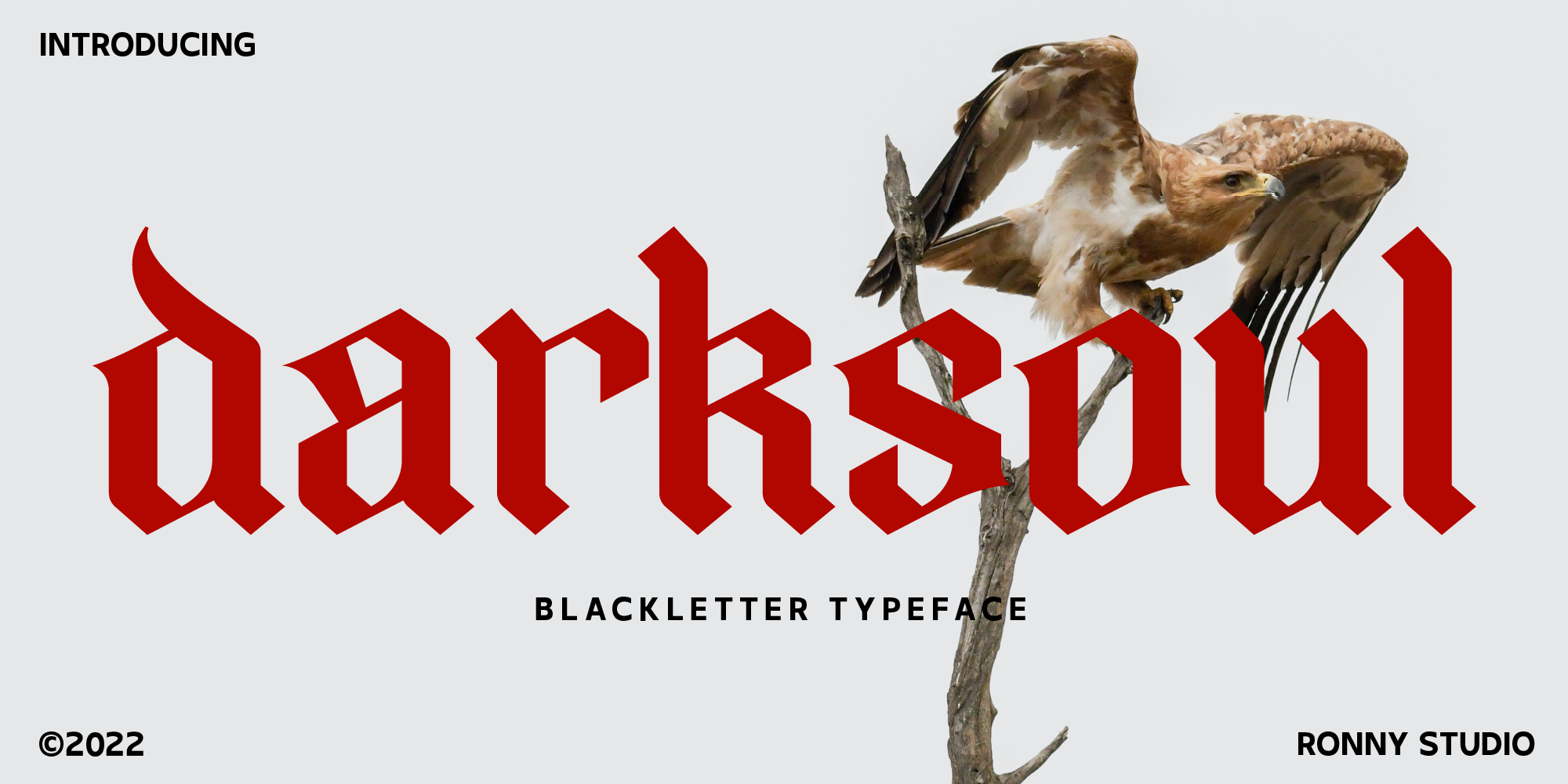
Darksoul Font is a powerful and intensely atmospheric typeface, perfectly suited for projects that demand a dark fantasy, gothic, or deeply mysterious aesthetic. Imagine it dominating the title screen of a challenging video game, adding an ominous and foreboding edge to horror movie posters, or making an unforgettable statement on album covers for heavy metal bands and dark ambient artists. It's also an excellent choice for crafting striking logos for gaming guilds, designing impactful merchandise for alternative brands, or bringing a grim, powerful vibe to graphic novels and supernatural-themed digital content. If you're looking to convey strength, despair, and an undeniable sense of epic darkness, Darksoul Font is an outstanding selection.
What makes Darksoul Font so exciting? It’s its unparalleled ability to combine a robust, often rugged construction with distinctive, sharp, or jagged details that evoke a sense of ancient power and impending doom. This font is designed to stand out, with its thick strokes and unyielding presence making it ideal for display purposes where impact is paramount. Despite its aggressive visual presence, Darksoul Font is crafted to maintain excellent readability, ensuring that your message is delivered with both clarity and significant force. Designers will appreciate its versatility in creating designs that are both visually assertive and deeply immersive, making it a go-to choice for projects that need to embody raw power and a captivating sense of the unknown.
The Darksoul Font family is typically designed to maximize its formidable and distinctive aesthetic. While it might primarily feature a strong Regular or Bold weight, you could find variations that enhance its utility, such as distressed versions for an even grittier, battle-worn feel, or stylistic alternatives that offer more creative typographic possibilities to deepen its lore. These variations ensure that Darksoul Font maintains its cohesive and high-impact visual identity across different design applications, from monumental titles to supporting text that still carries significant weight. Discover the formidable power of Darksoul Font Free Download and infuse your designs with an unforgettable sense of dark, unyielding strength.